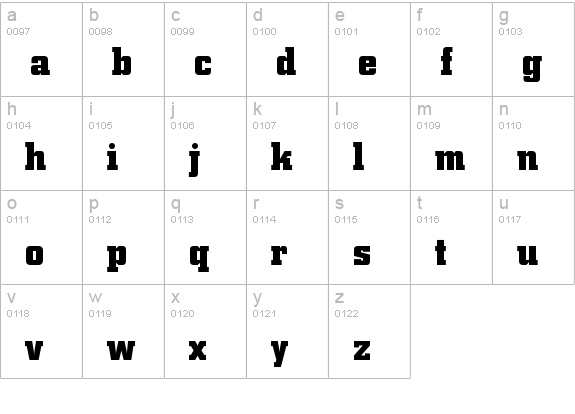
Berthold City Bold Font Details
Berthold City Bold is a strong, high-contrast variant in the Berthold typeface family \xE2\x80\x94 well suited to headlines, attention-grabbing titles, and strong calls-to-action.
Berthold City Bold font is a striking and bold typeface that commands attention and exudes confidence. Its sharp edges and strong lines make it perfect for headlines, posters, and branding materials. With its modern and sleek design, Berthold City Bold font adds a touch of sophistication to any project. What makes Berthold City Bold font even more appealing is that it is available for free download at FontsMarket.com. This means that you can easily access this versatile and eye-catching font to elevate your designs without having to spend a penny. Don't miss out on the opportunity to enhance your creations with the impactful Berthold City Bold font - get your free download today!